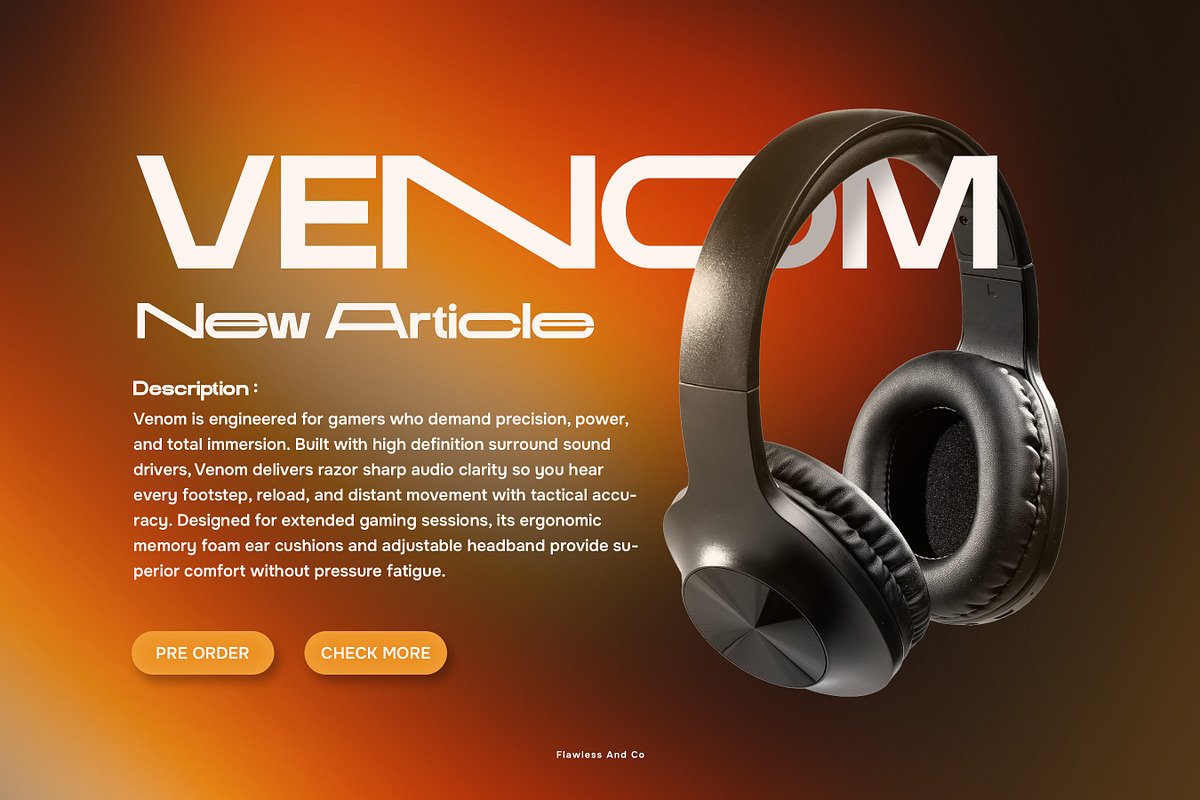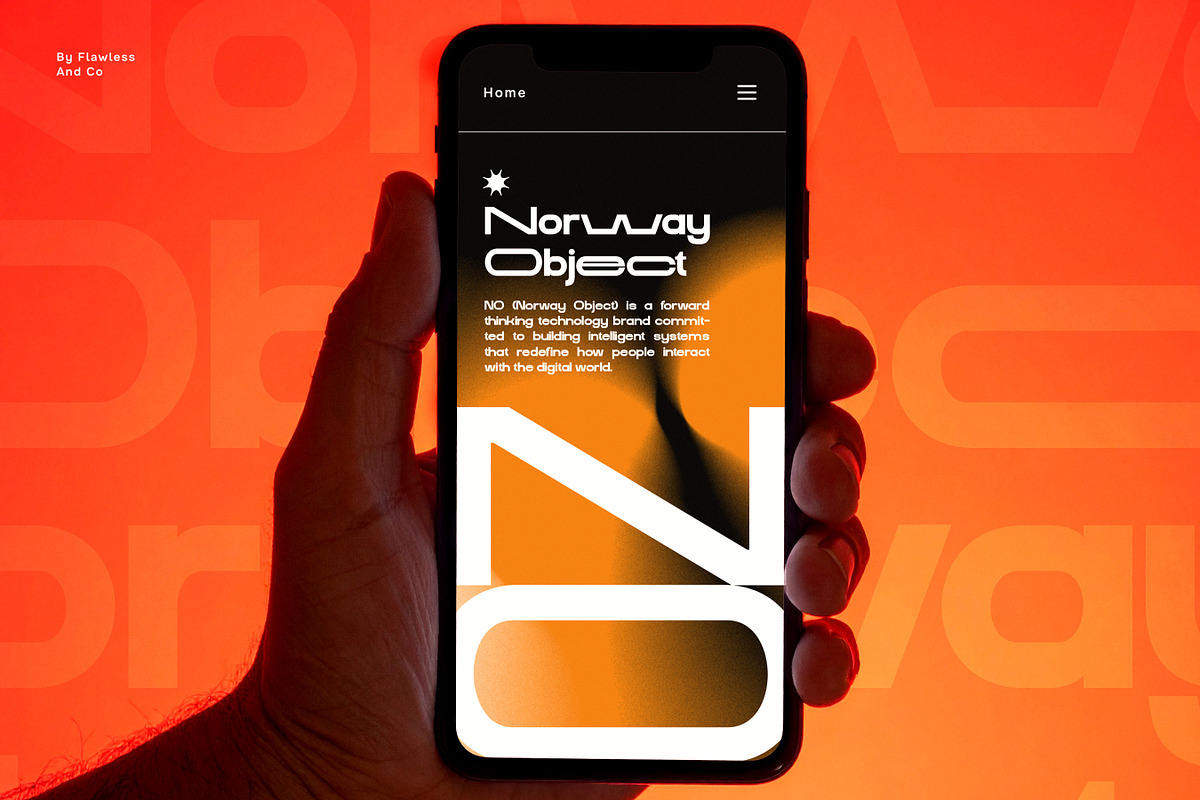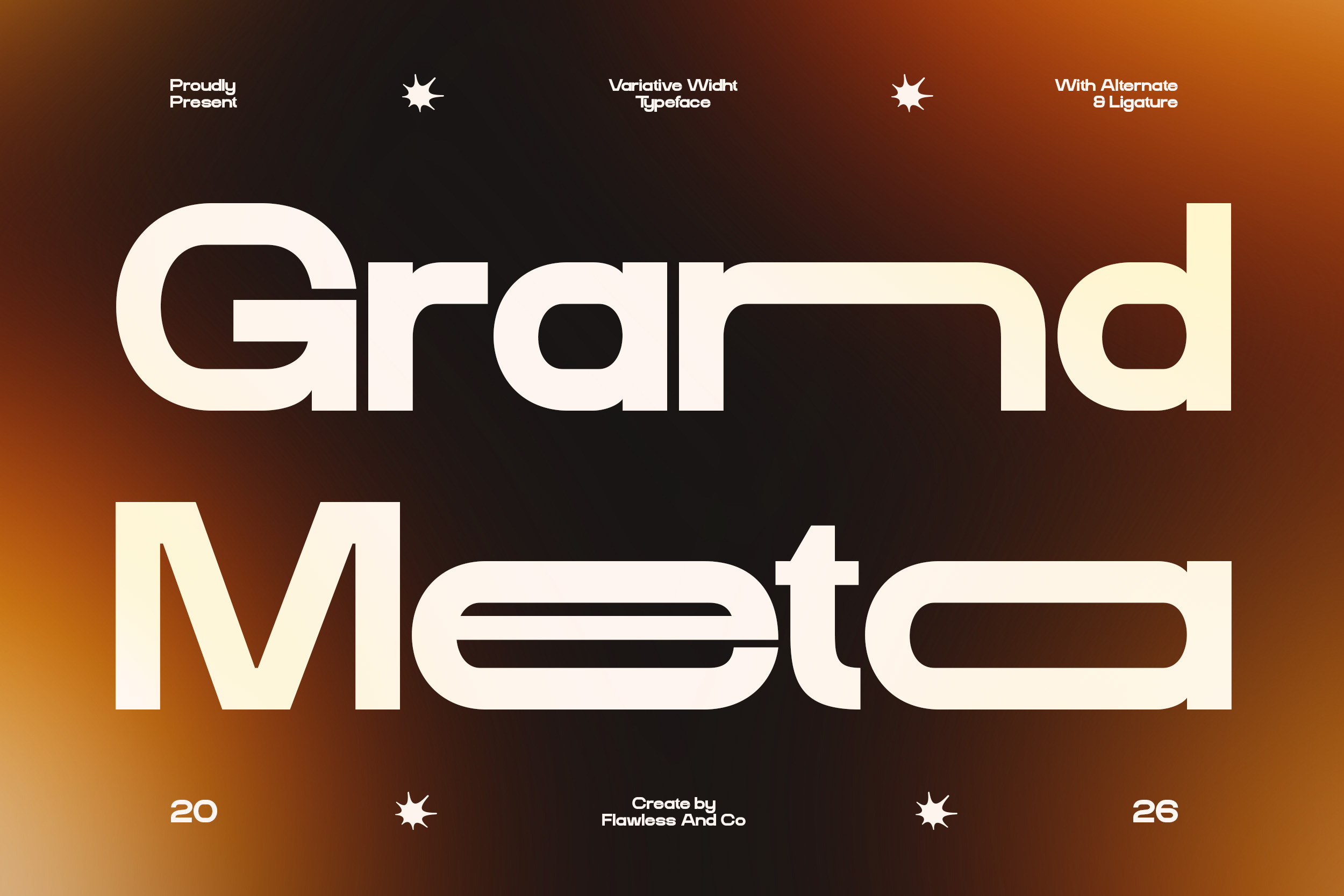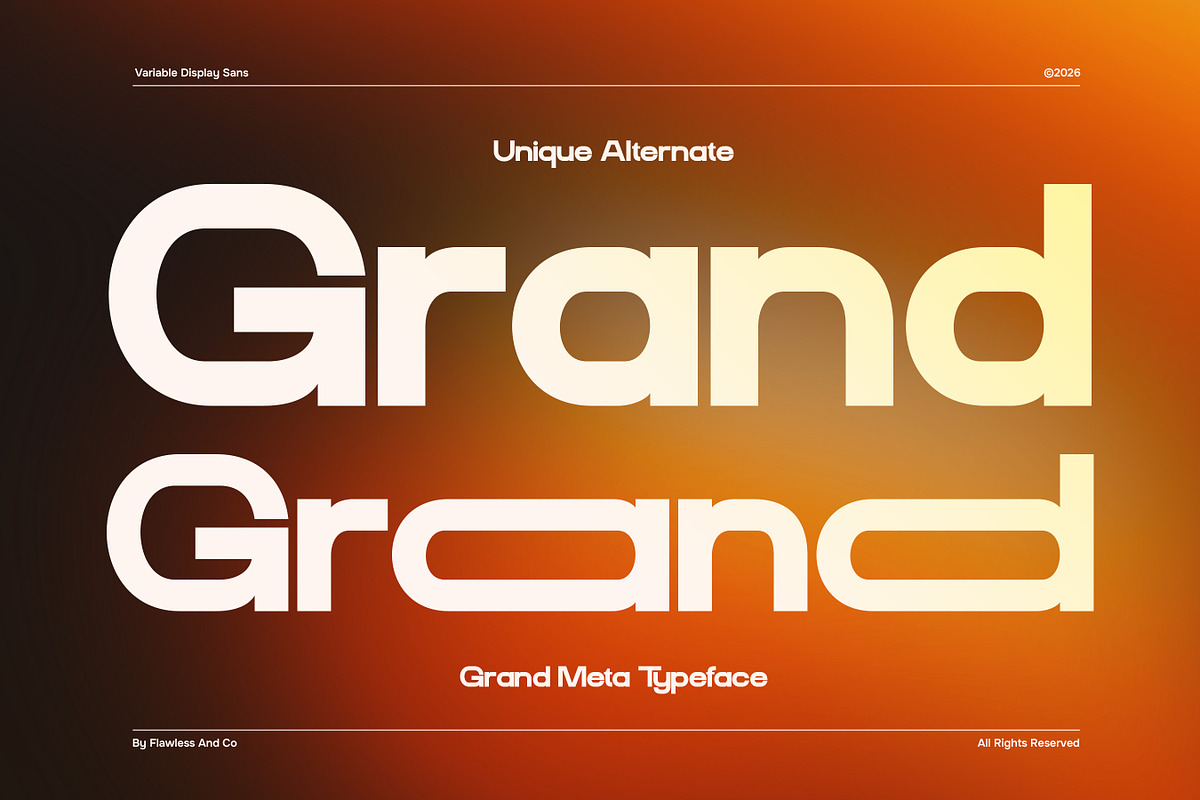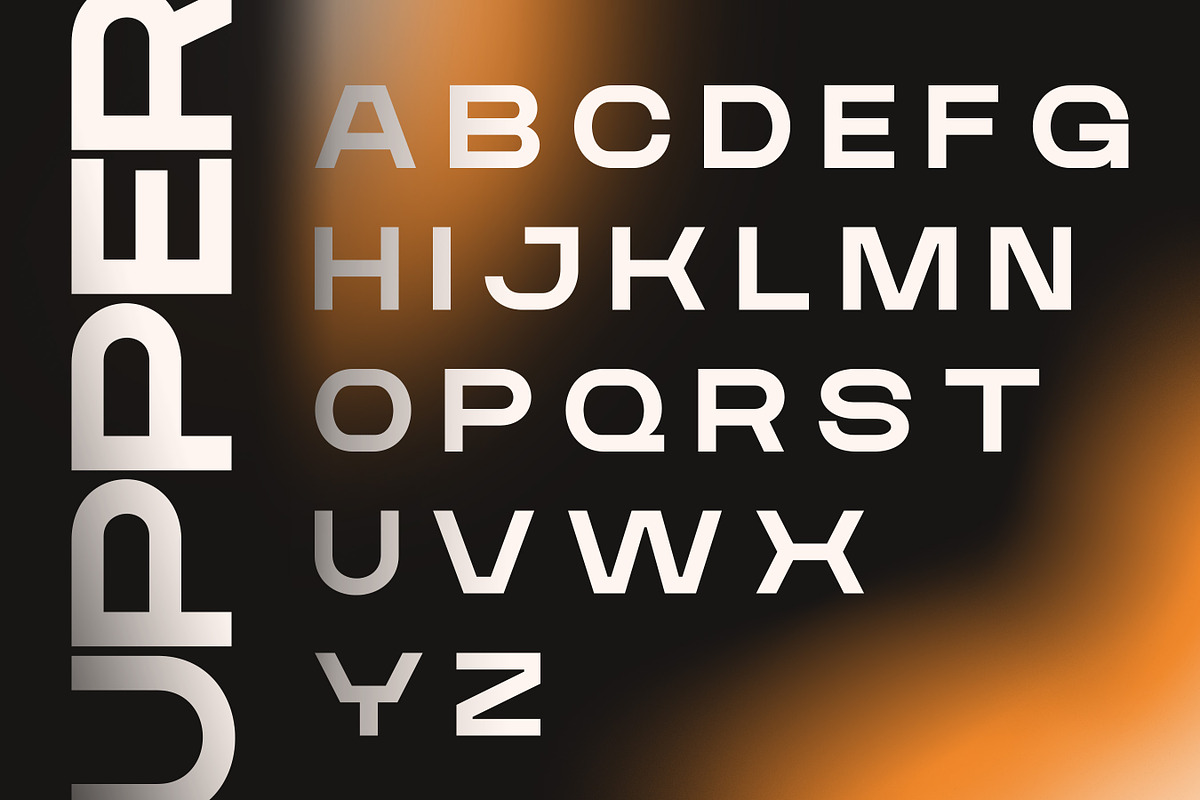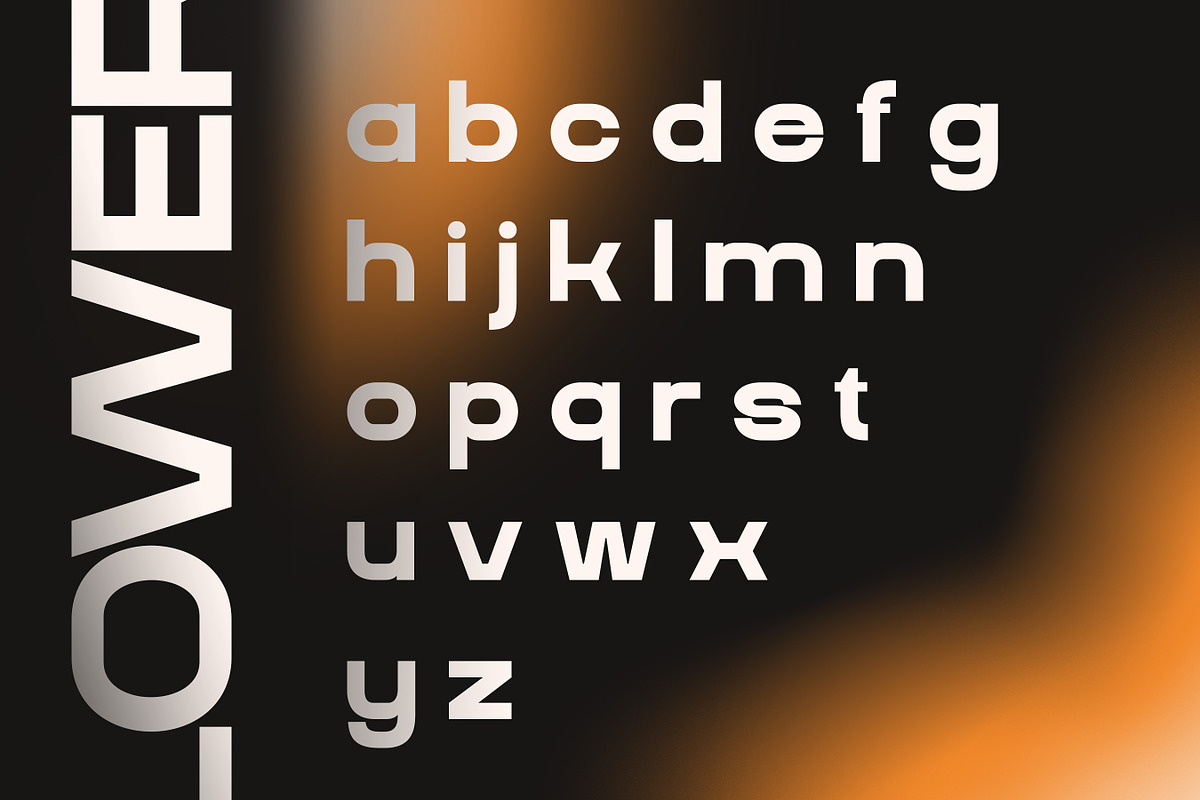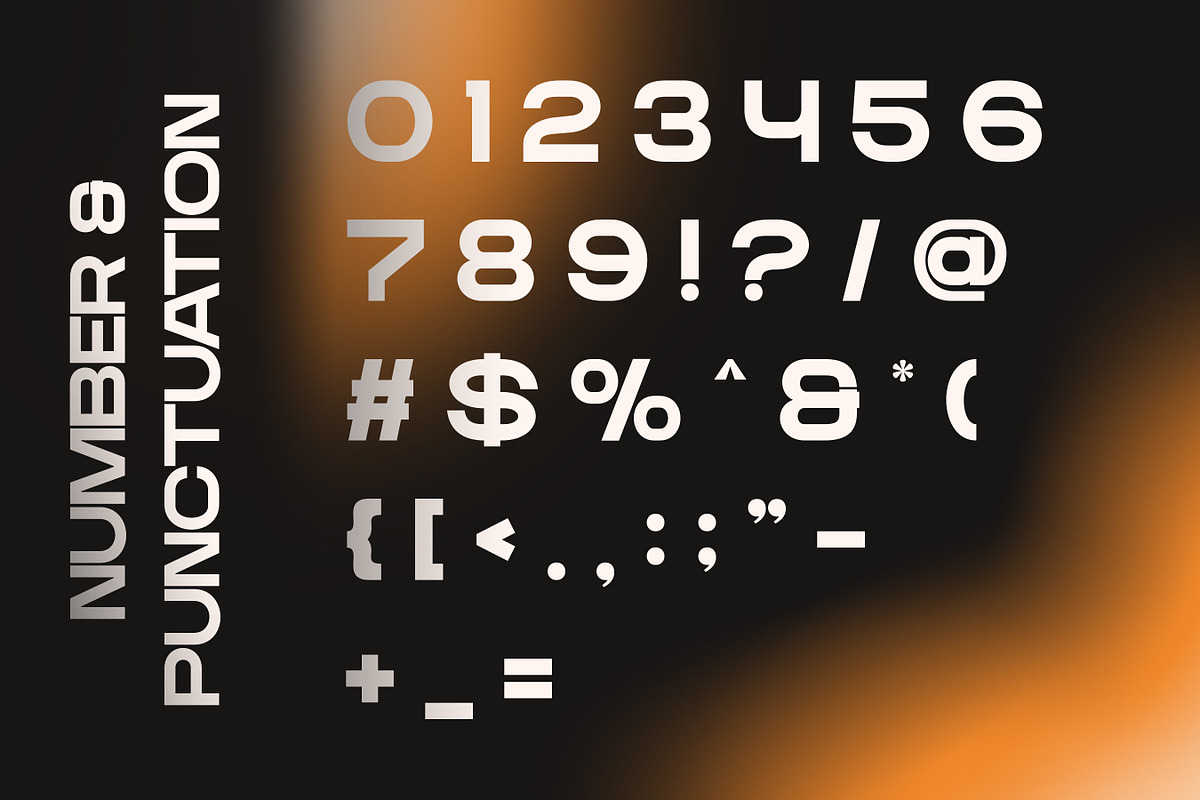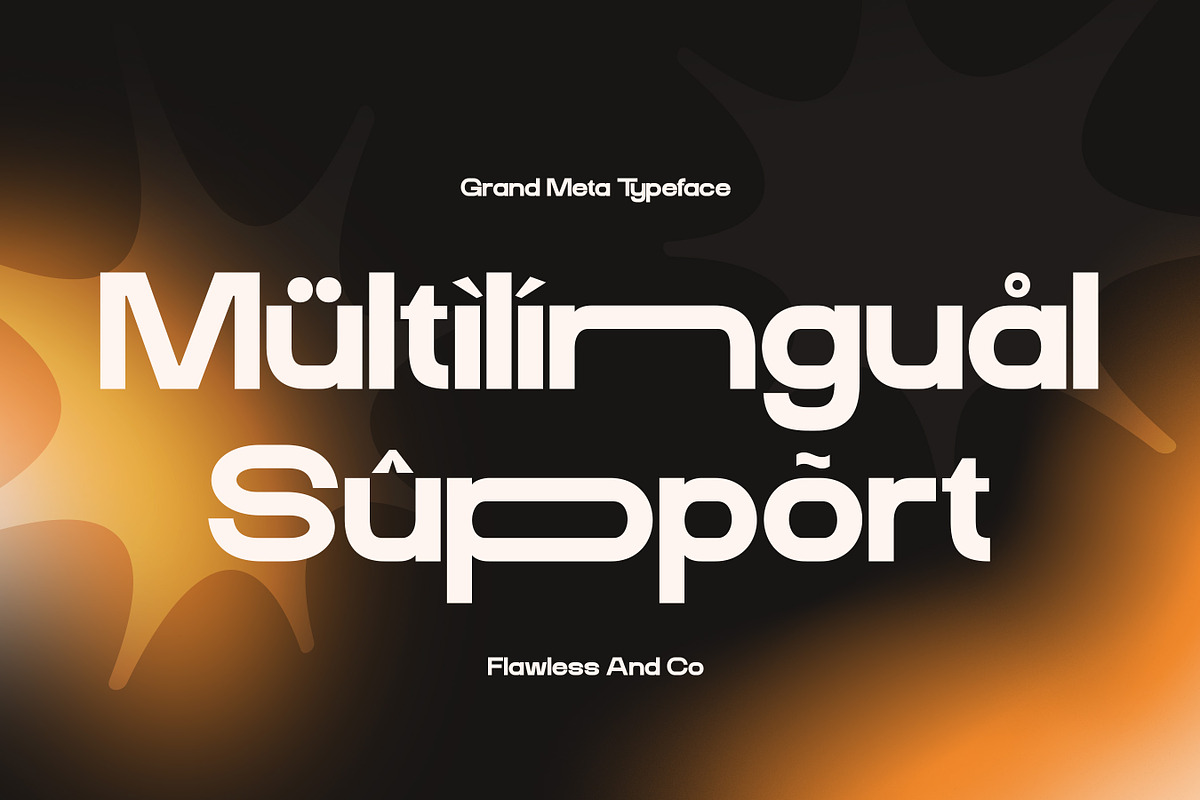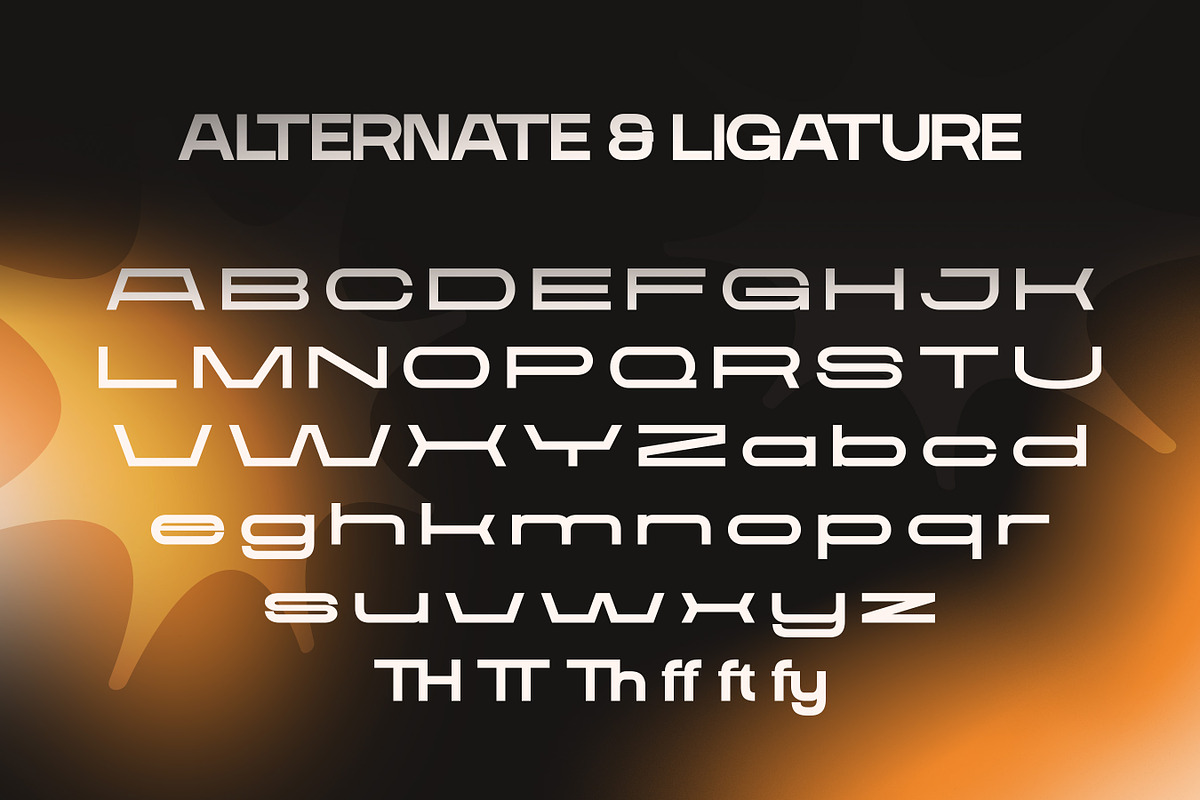
Grand Meta - Width Sans Serif Font
Grand Meta - Variative Width Sans Serif Font
Grand Meta is a modern variative width sans serif font designed to bring flexibility, clarity, and dynamic style into your typography. Featuring a unique range of width variations, this typeface allows you to explore creative compositions—from compact and space-saving layouts to wide and expressive headlines—while maintaining a consistent and cohesive look.
Who Should Use Grand Meta?
Grand Meta is perfect for designers, creatives, and brands who need a flexible and modern sans serif with a strong visual identity. It’s especially ideal for those working on projects that require adaptability, precision, and a clean contemporary aesthetic.
Suitable For:
- Modern and corporate branding
- Logo and identity design
- Editorial and magazine layouts
- Posters and headlines
- User interface and web design
- Advertising and marketing materials
- Social media graphics
- Creative typography exploration